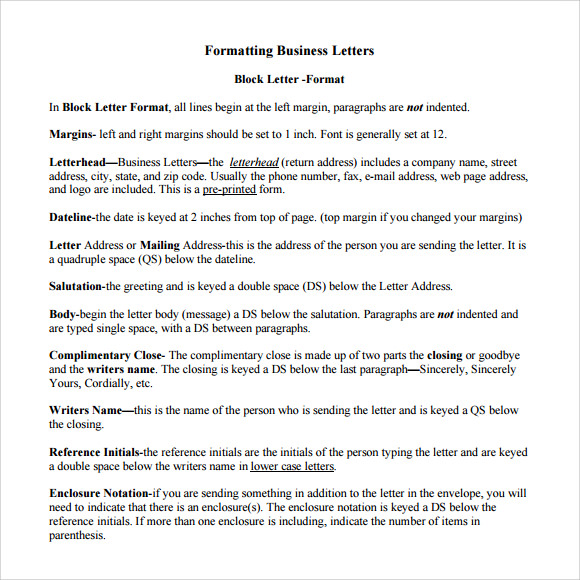
Sometimes, smaller or larger type size can be used to make certain points or to. One of the initial fonts used in the online industry, ff tisa’s sturdy design and flexible design was and is clearly visible on all kinds of screens.
Simple What Font Should I Use For Business Letter Idea In 2022, In addition to the overall format and structure laid out above, you may also want to consider the following information as standard business practices. The right font will drive your message home, and the wrong font will distract your audience and detract from your credibility.
The font size should be set to 12pt and it's best to limit yourself to just one typeface. Some business cards also use textured paper and use embossed letters. For example, the typeface helvetica encompasses over 50 fonts. Arial and helvetica are the two best fonts to use for business email purposes — just make sure you don't go any smaller than 10 points in size.
How to Write a Compelling Business Request Letter to Reach Your Goal Ff tisa is also a very famous font in the online business world.
Complex fonts can make your resume difficult to read, which could encourage employers to overlook it. Instead, choose a clean, simple resume font that makes your words clear to the employer. A font is differentiated by size, weight, and style while still falling within the “type family.”. On your business card, this font is perfect for the name of your business.
The right font will drive your message home, and the wrong font will distract your audience and detract from your credibility. A good rule of thumb is to use serif for headlines if the body text is in sans serif, and vice versa. These are both system fonts that are available on every computer and are easy to read, he says. The typeface (or type family) is the “design” of the characters. Cahyadi Surya Business Letter.
Select the font size you want to use the same way. These are both system fonts that are available on every computer and are easy to read, he says. The sole purpose and design revolved only around editorials in mind. One strong contender in our list for the best fonts for emails is. FREE 7+ Sample Format for Business Letter Templates in PDF MS Word.
Highlight the content of your letter. A good rule of thumb is to use serif for headlines if the body text is in sans serif, and vice versa. As for the person who wanted a definitive answer, studies have been shown that baskerville is the most believable and least objectionable font. Fonts for a business logo, for example, should work to be traditional and clean. Proper Personal Letter Format For Your Needs Letter Templates.
Times new roman the font is used in nearly all applications on print and web. Ff tisa is also a very famous font in the online business world. If not, they will be among the choices available in the program. Keep in mind that you’re designing a business card to print. Formation of business letter.
The characters of helvetica will all share common design characteristics. The font is preferable because it is legible and clear. But fonts from the same ‘family’, such as lucida sans and lucida bright, also often work well. Some business cards also use textured paper and use embossed letters. How a Business Memo is Different from a Business Letter Free.
Try some different fonts and font sizes until the letter fits onto one page. The font size should be set to 12pt and it's best to limit yourself to just one typeface. This frequent usage has resulted in the font being perceived as authoritative and formal. Fonts for a business logo, for example, should work to be traditional and clean. 20+ Business Letter Template for Different Purposes Template Business.
This frequent usage has resulted in the font being perceived as authoritative and formal. Read on for three essential tips to help you choose the right font for your brand. Usually a 12 point font, for ease of reading, although, if one is trying to cram additional info onto one typewritten page, then 11 point of even 10 point may be used. Additionally, size and colour will play an important role too, and will also have an impact on how easy or hard your text is to read. Business Letter Format (How to Write) Structure and Examples.
The best font for a cover letter should be easy to read and match the font you use in your resume. Instead, choose a clean, simple resume font that makes your words clear to the employer. For example, the typeface helvetica encompasses over 50 fonts. A font is differentiated by size, weight, and style while still falling within the “type family.”. 8 Proper Business Letter Format Templates Download for Free Sample.
Ff Tisa Is Also A Very Famous Font In The Online Business World.
Times new roman the font is used in nearly all applications on print and web. The font size should be set to 12pt and it's best to limit yourself to just one typeface. Decide which characteristics you want your brand to. Familiar fonts like arial, verdana, calibri, and times new roman all work well for professional emails.